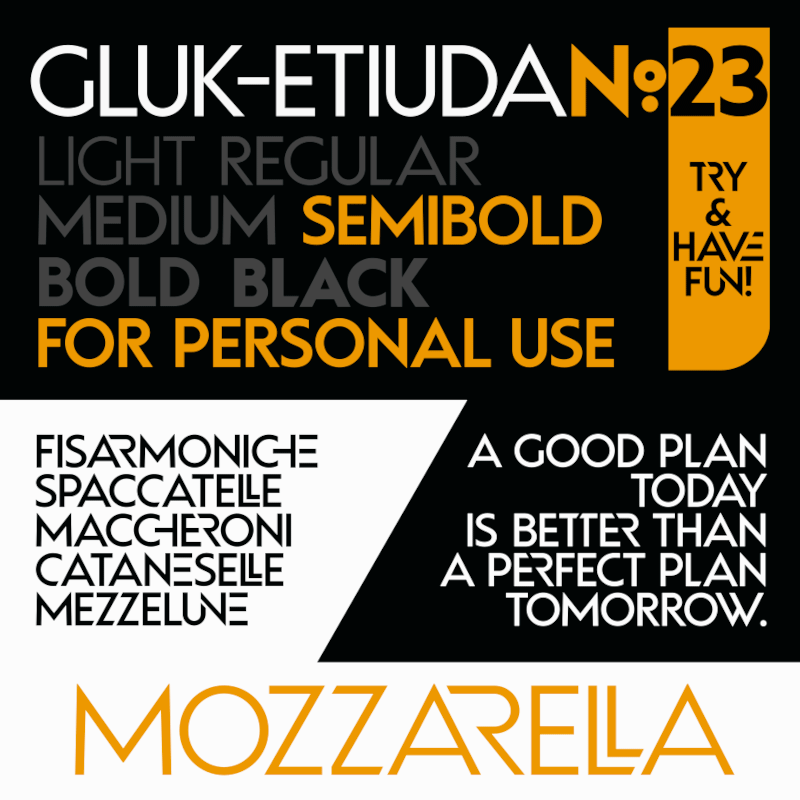
Preview and download Gluk Etiuda No23 Font. Created by gluk in Basic Sans serif styles with Free for personal use license.
Font Gluk Etiuda No23 Semi�bold is a geo�met�ric sans serif from Gluk Etiuda No23 fam�ily (6 weights � from Light to Black). With over 600 alter�nate glyphs, this font has exten�sive Latin lan�guage sup�port for West�ern, Cen�tral, and East�ern Euro�pean and gives text a unique, ele�gant and mod�ern feel. Use low�er�case for con�tex�tual power, taste Dec�o�ra�tive Lig�a�tures and 4 Styl�is�tic Sets or use UPPER�CASE for clas�sic style & Have Fun! Tech�ni�cal info: To be able to use GlukEtiudaNo23 fonts you need to have installed pro�gram with Open�type fea�tures (Con�tex�tual Alter�nates, Dec�o�ra�tive Lig�a�tures) sup�port. This ver�sion of Gluk Etiuda No23 Semi�bold is free for per�sonal, edu�ca�tional, non-profit, char�i�ta�ble use and redistribution. Full Gluk Etiuda No23 fam�ily can be pur�chased at: https://glukfonts.pl/r/GlukEtiudaNo23 |